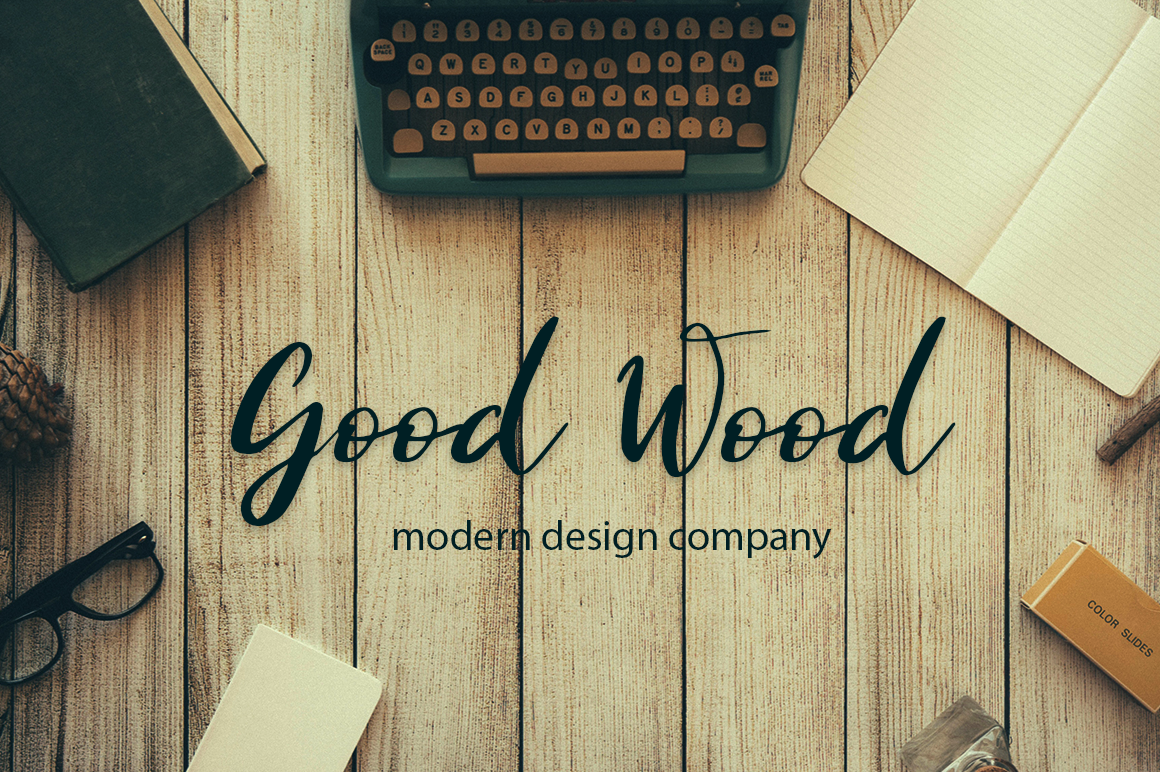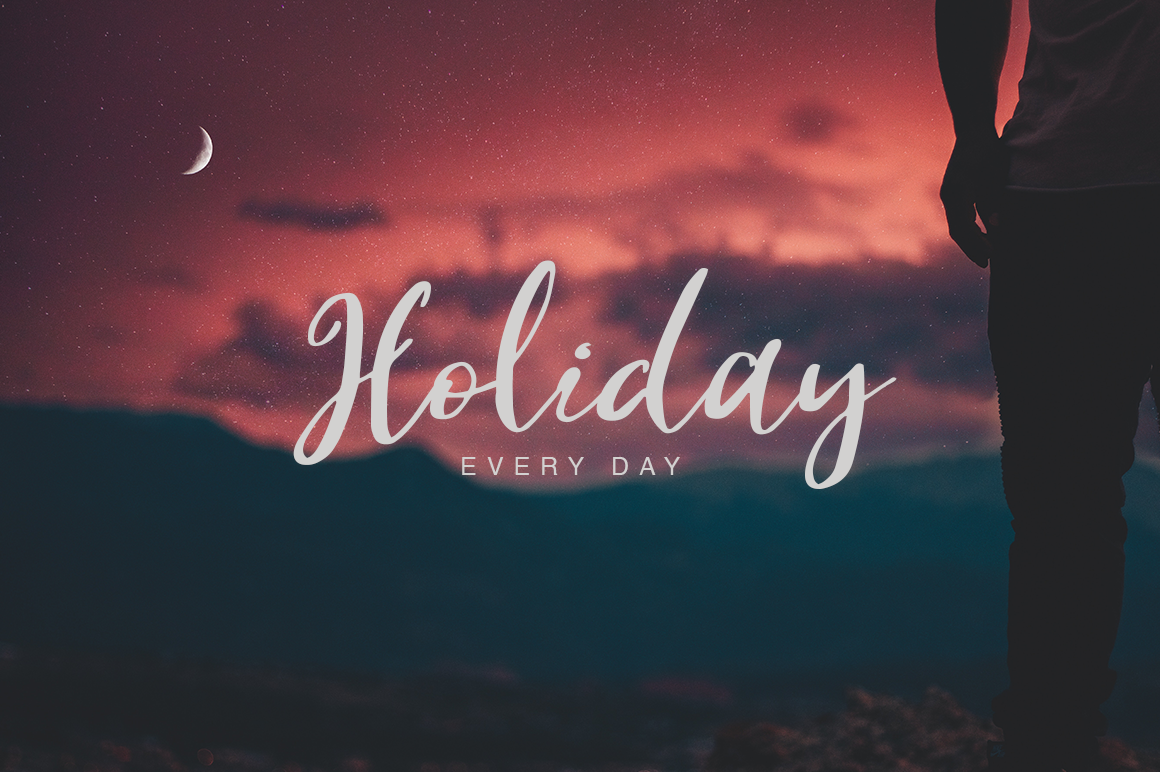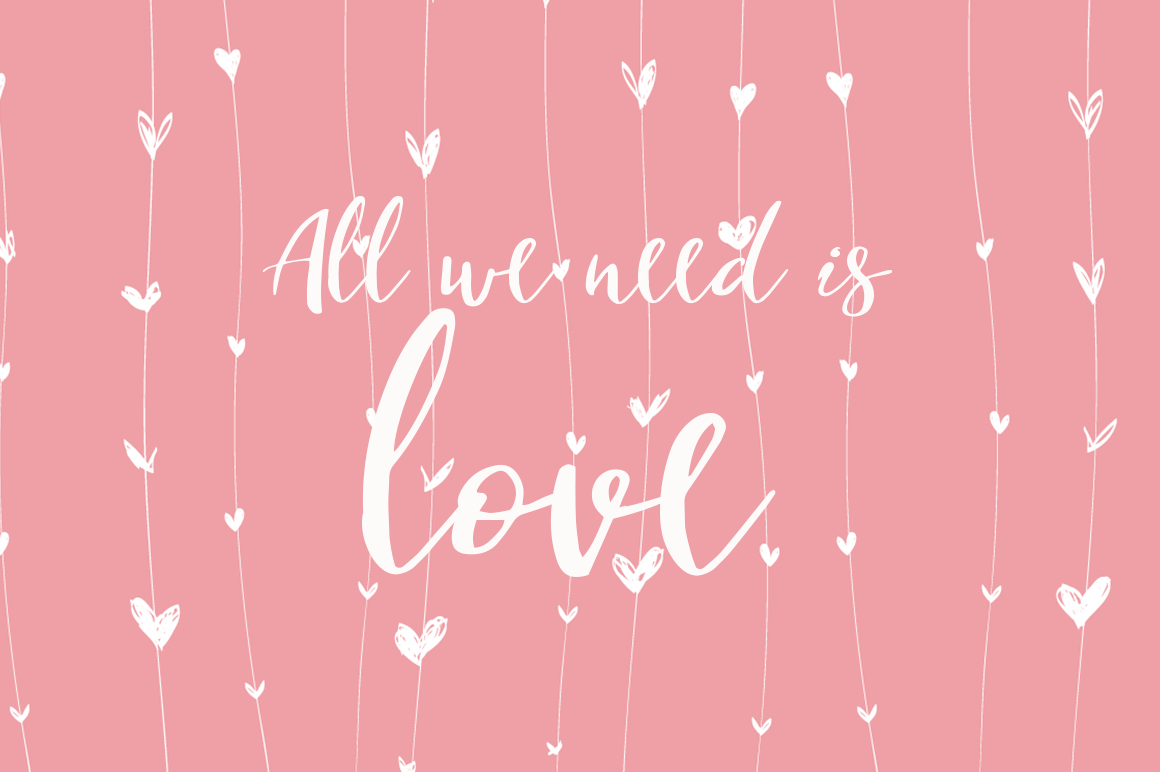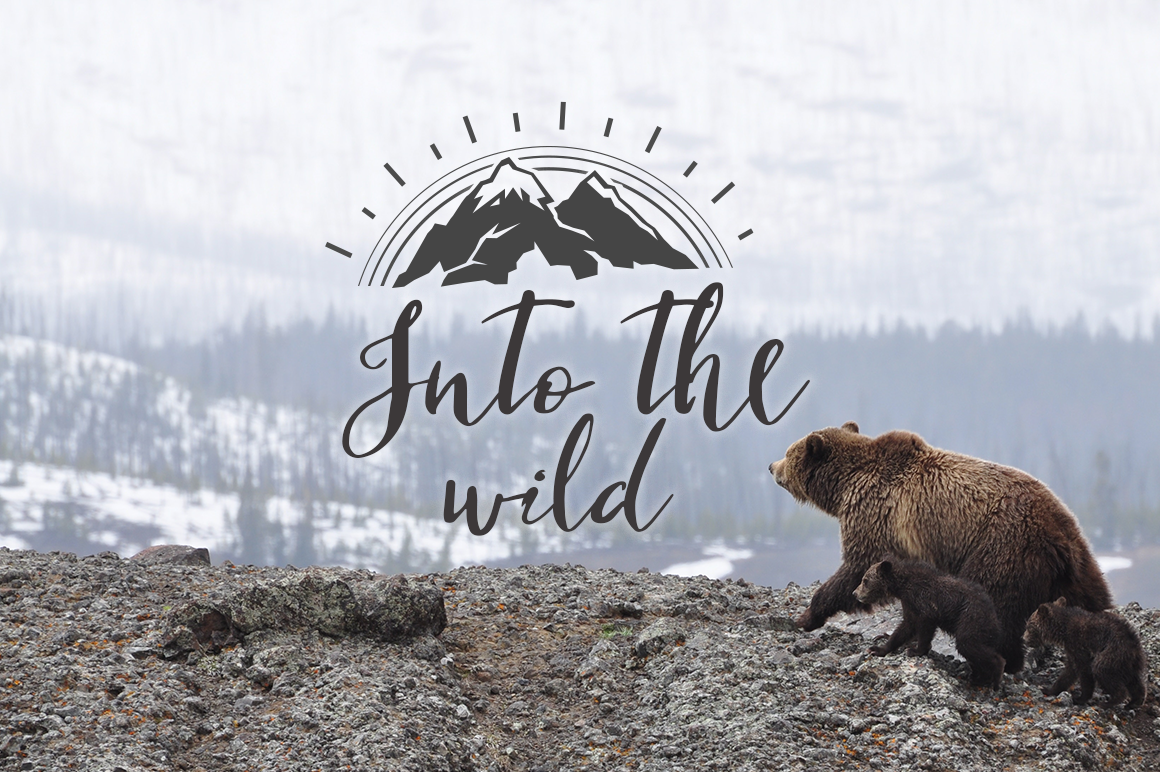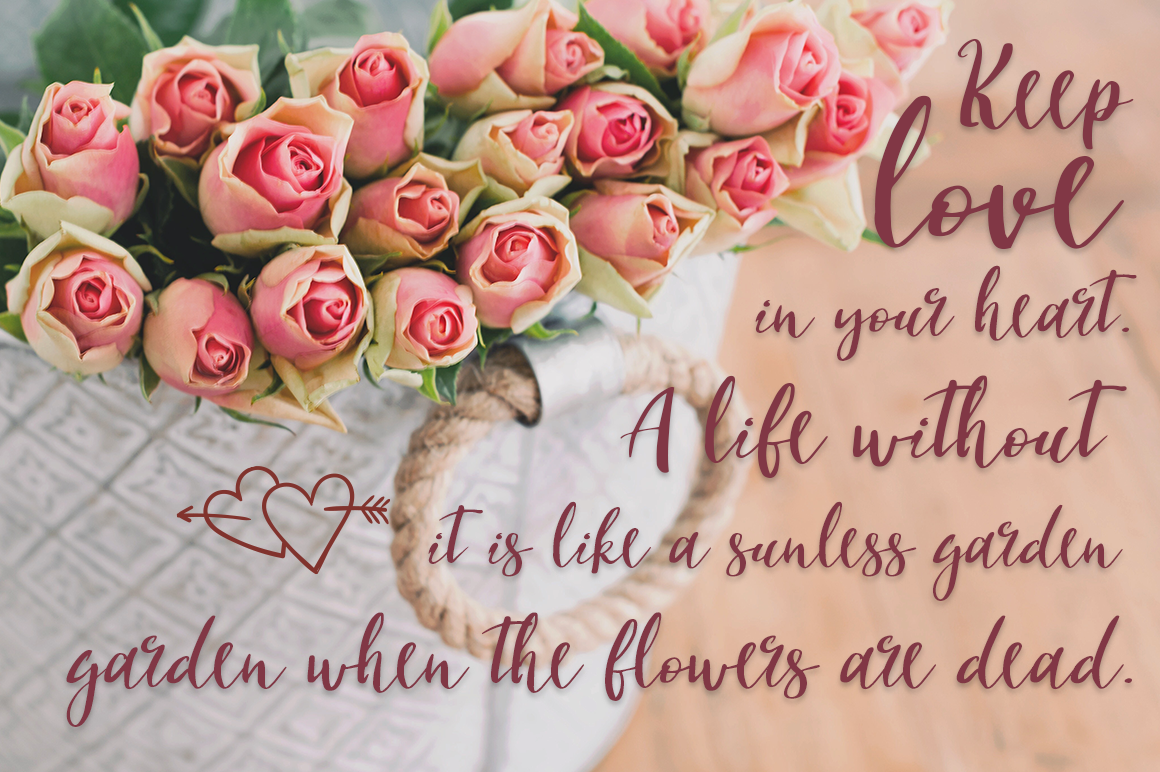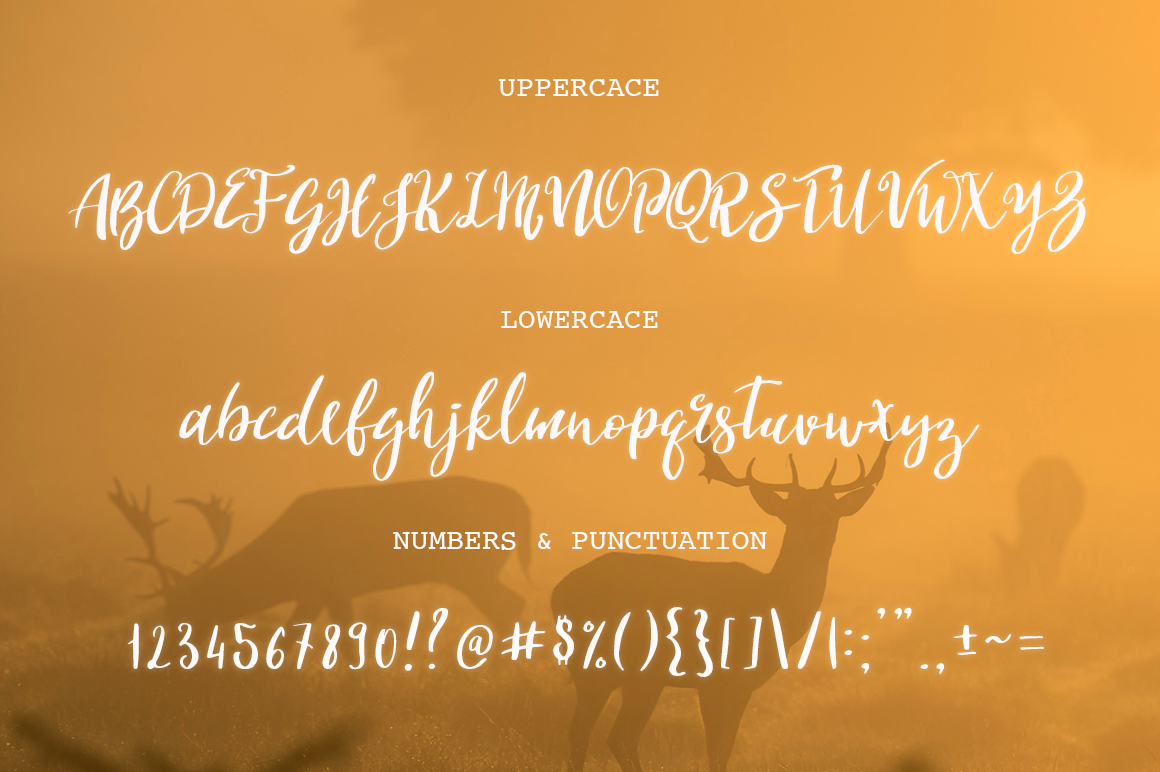
Introduction to Magdolena Font Font
Fonts play a crucial role in design, and the Magdolena Font font is a typeface that brings both character and versatility to any project. Whether you’re working on a branding project, a website, or a print design, the Magdolena Font font offers a unique style that can elevate your work.
Magdalena script is a handwritten font that is perfect for adding a personal touch to your designs.
Key Features of Magdolena Font Font
Why Choose Magdolena Font Font?
The Magdolena Font font is more than just a typeface – it’s a design tool that helps you communicate your message with style and clarity. Its unique character set and versatile design make it suitable for a wide range of applications, from elegant invitations to bold headlines.
With its carefully crafted letterforms and balanced proportions, the Magdolena Font font ensures readability and visual appeal across all mediums.
What makes Magdolena Font font special?
The Magdolena Font font stands out with its unique design, exceptional readability, and versatility across various design applications.